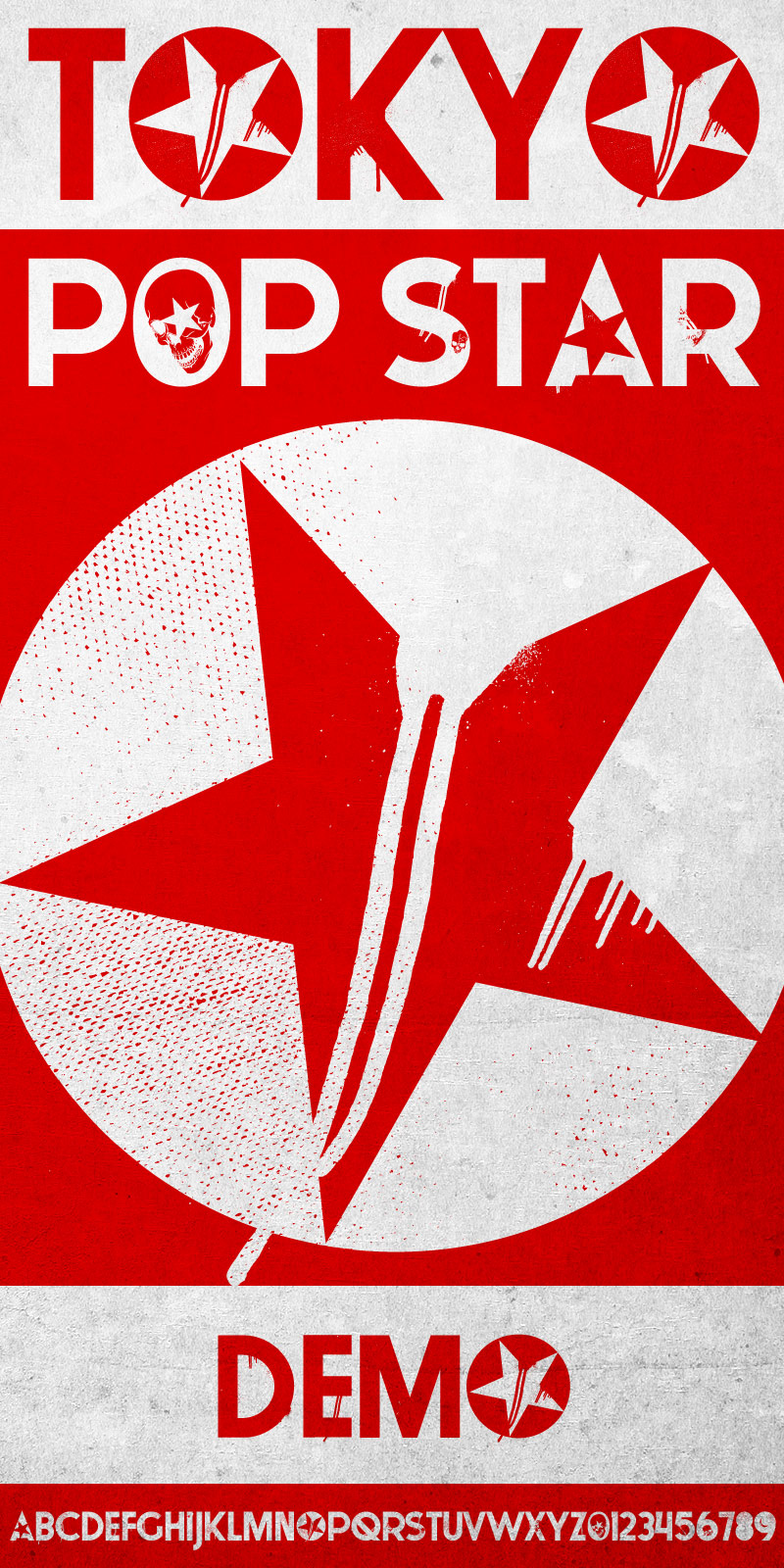
Preview and download Tokyo Pop Star Font. Created by MuraKnockout Media + Design in Fancy Eroded styles with 100% Free license.
This font is the result of strenuous labor, and heartfelt sadness. This font is destined to be LARGE. While it's a characteristically grungy masterpiece, at large size it has many extra details that aren't visible at a smaller proportion. In short, the bigger you make it, the more it transforms. http://michaelmuranaka.com ----------------------- This font is totally free. This is a grunge version of a font that I am currently working on, with more weights to come. Please use this font however you see fit. The grunge look is to exemplify the true potential of this font. http://michaelmuranaka.com/font-licensing-agreement/ ----------------------- Check out my new Font Blog to stay up to see when I release new fonts! http://michaelmuranaka.com/category/fonts/ ----------------------- Please DO NOT download this font and redistribute it on another website!!! This is free to do with whatever you wish, personal or commercial. Just don't claim ownership, sell it, redistribute it, or be a jerk with it. It might be cool if you use the font to either credit MuraKnockout Media or Michael Muranaka, or show me how you used it! Enjoy! |